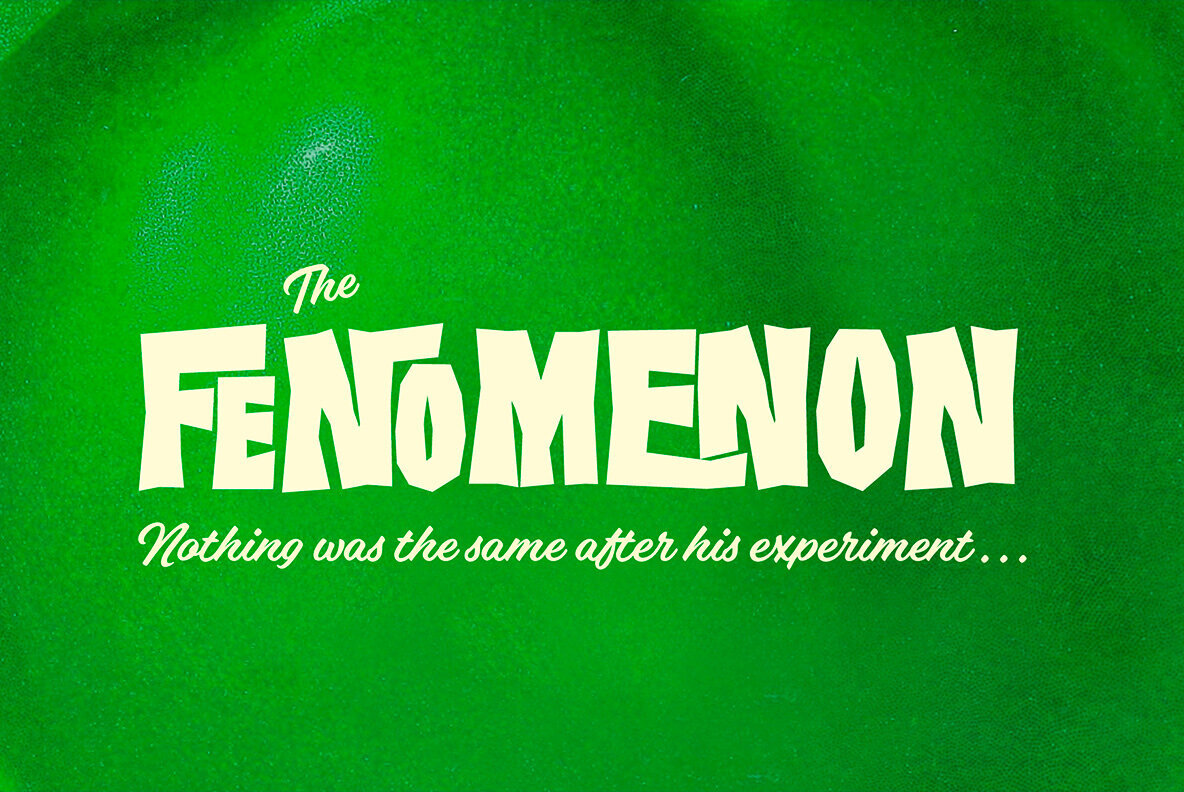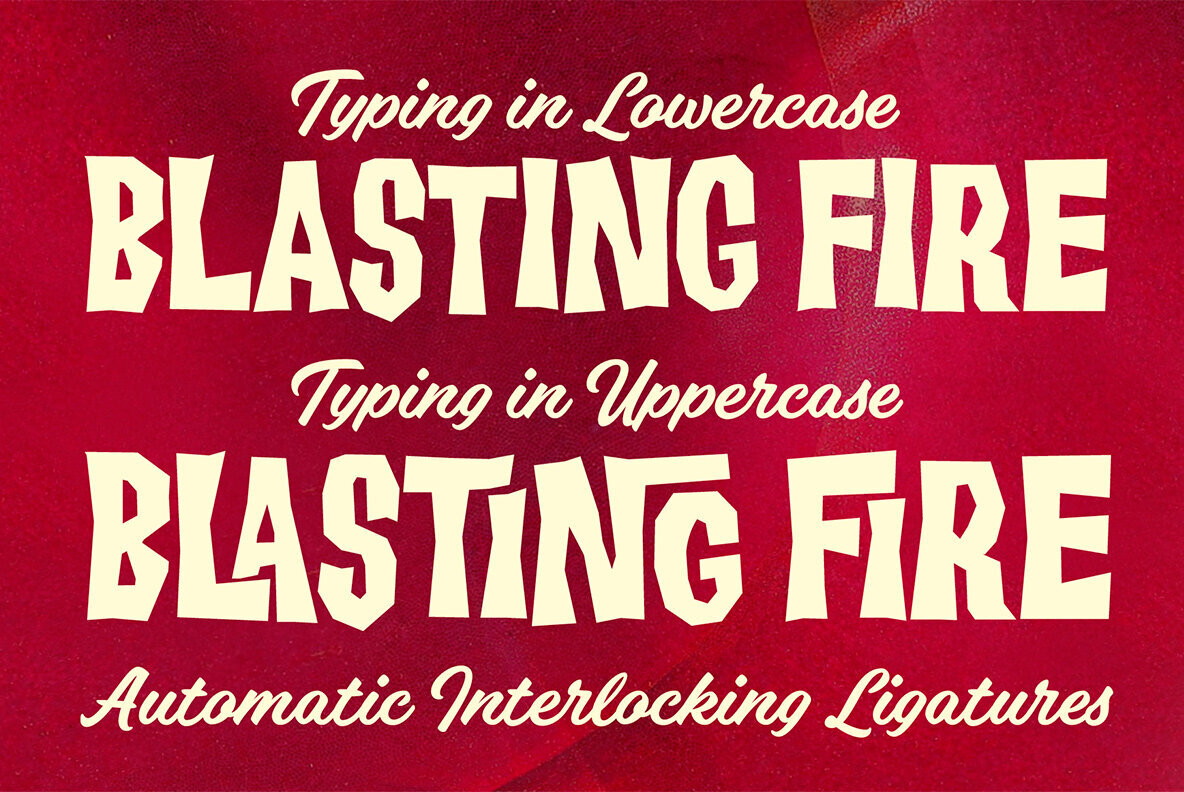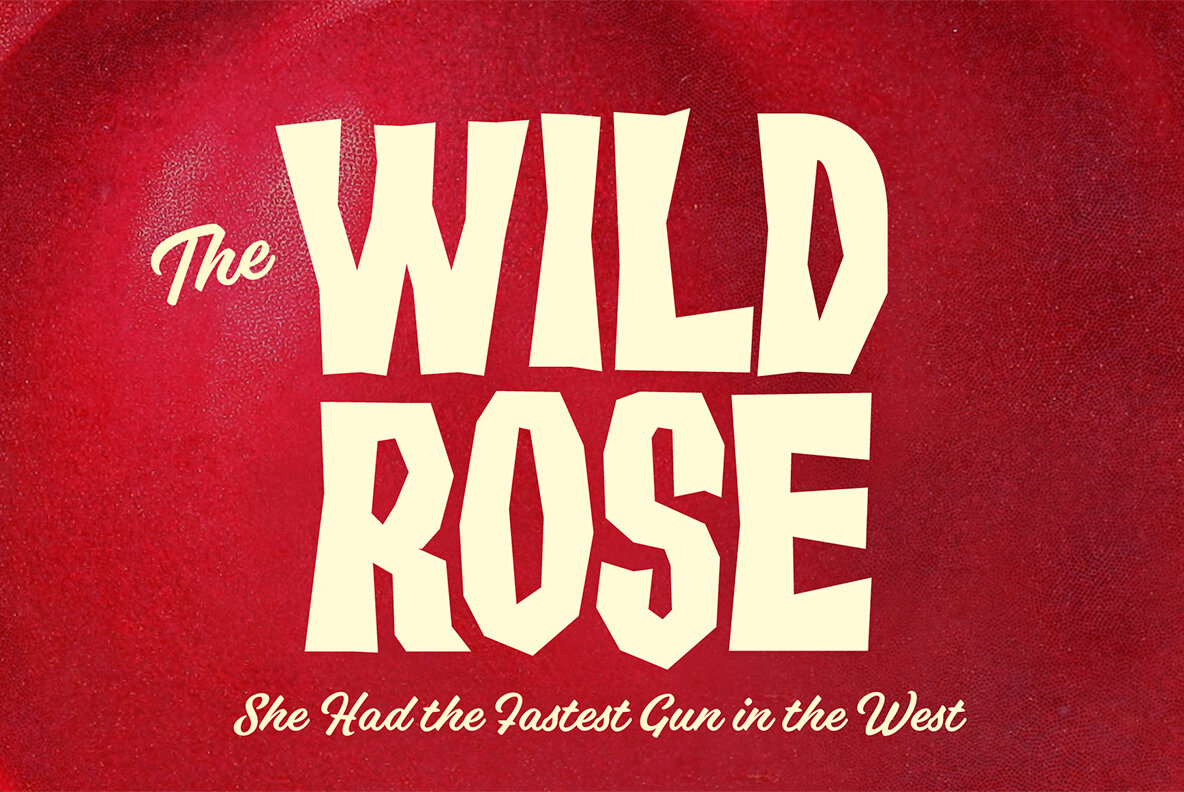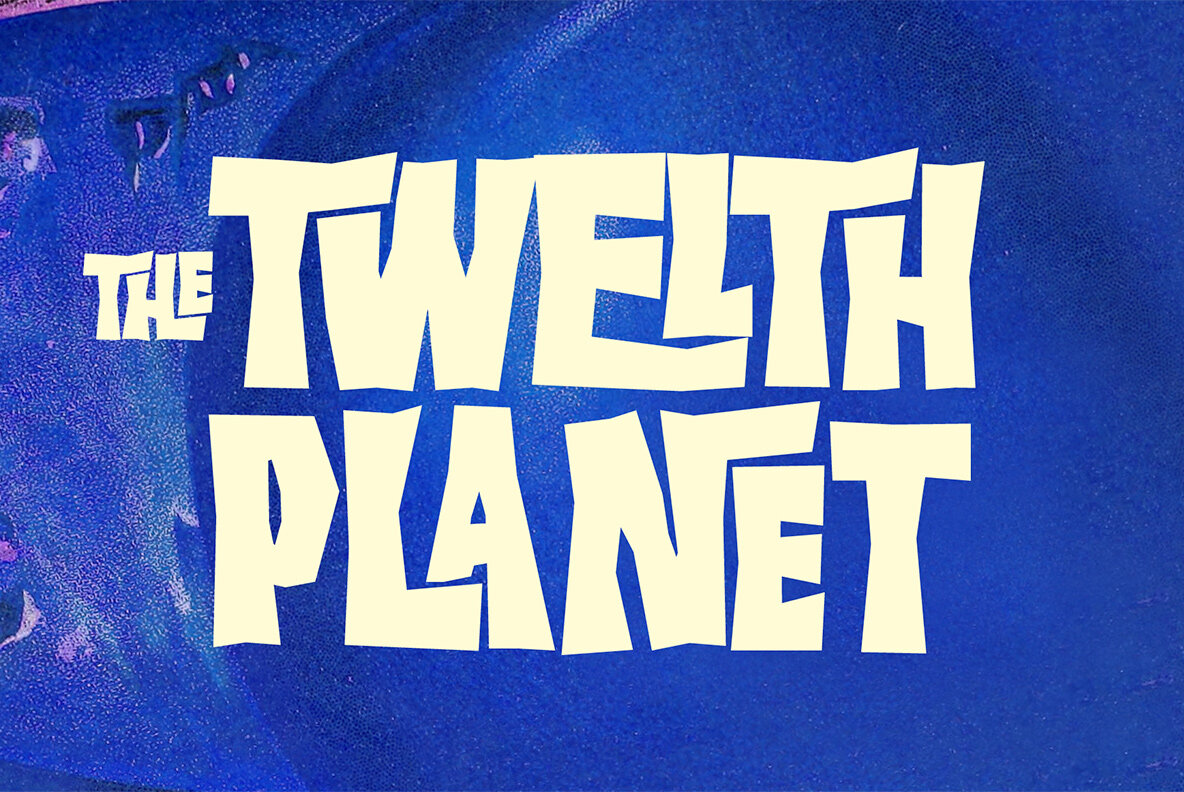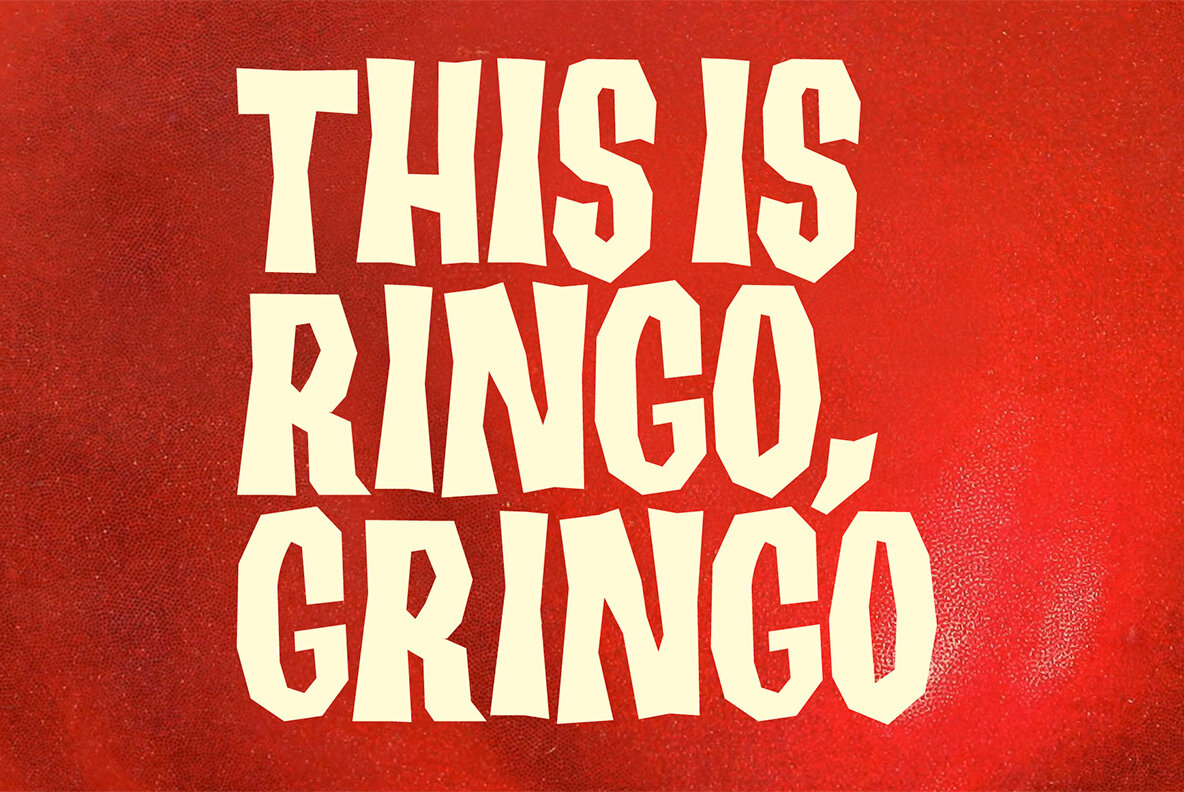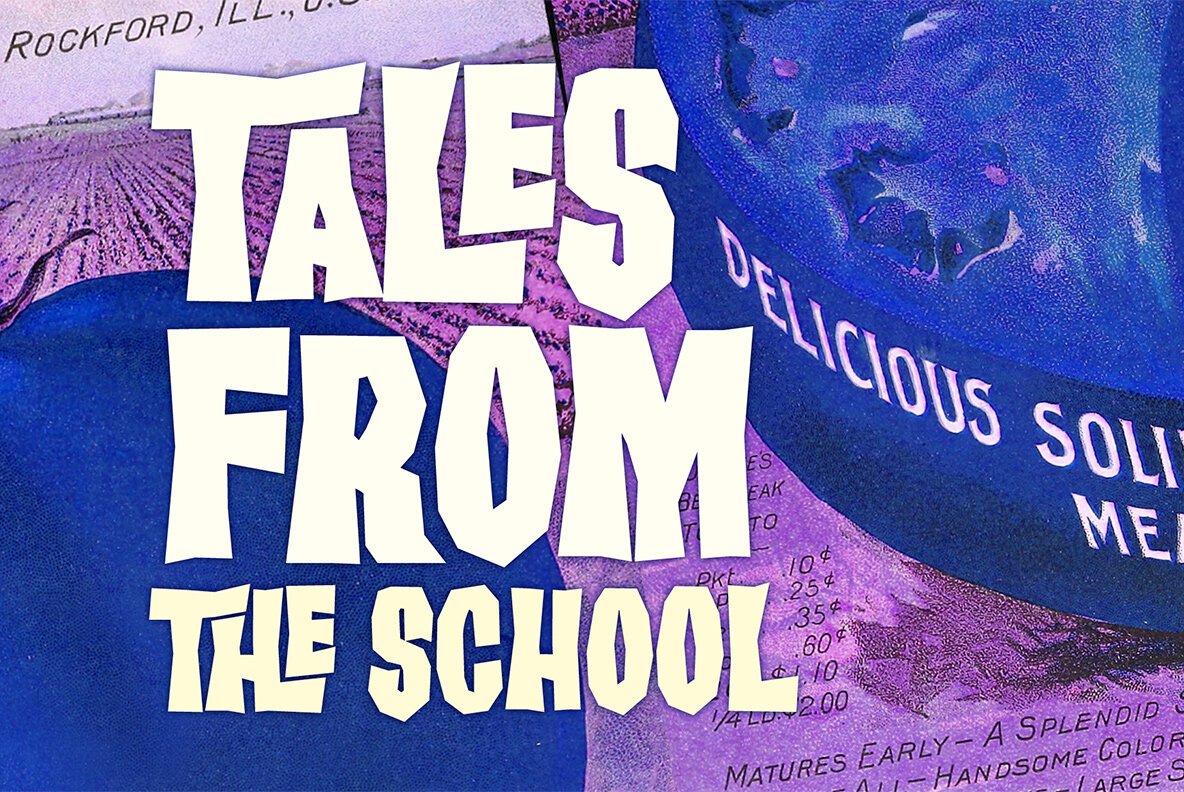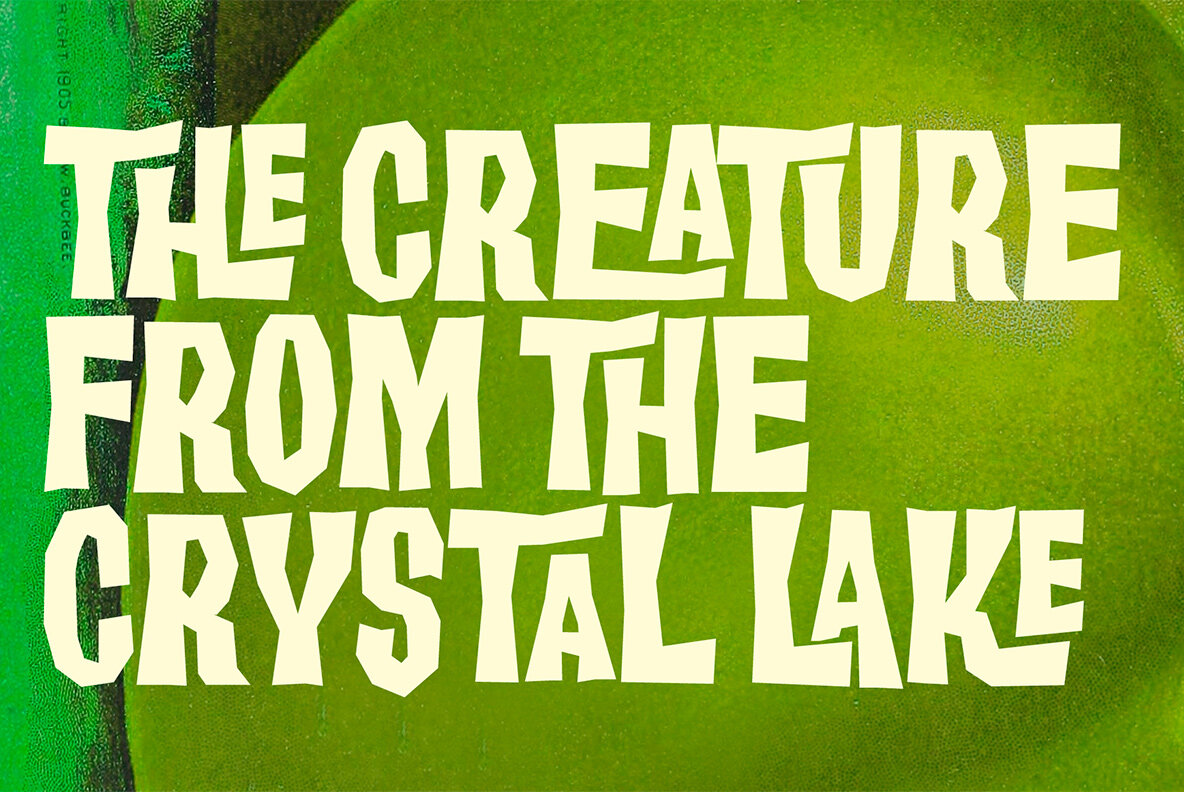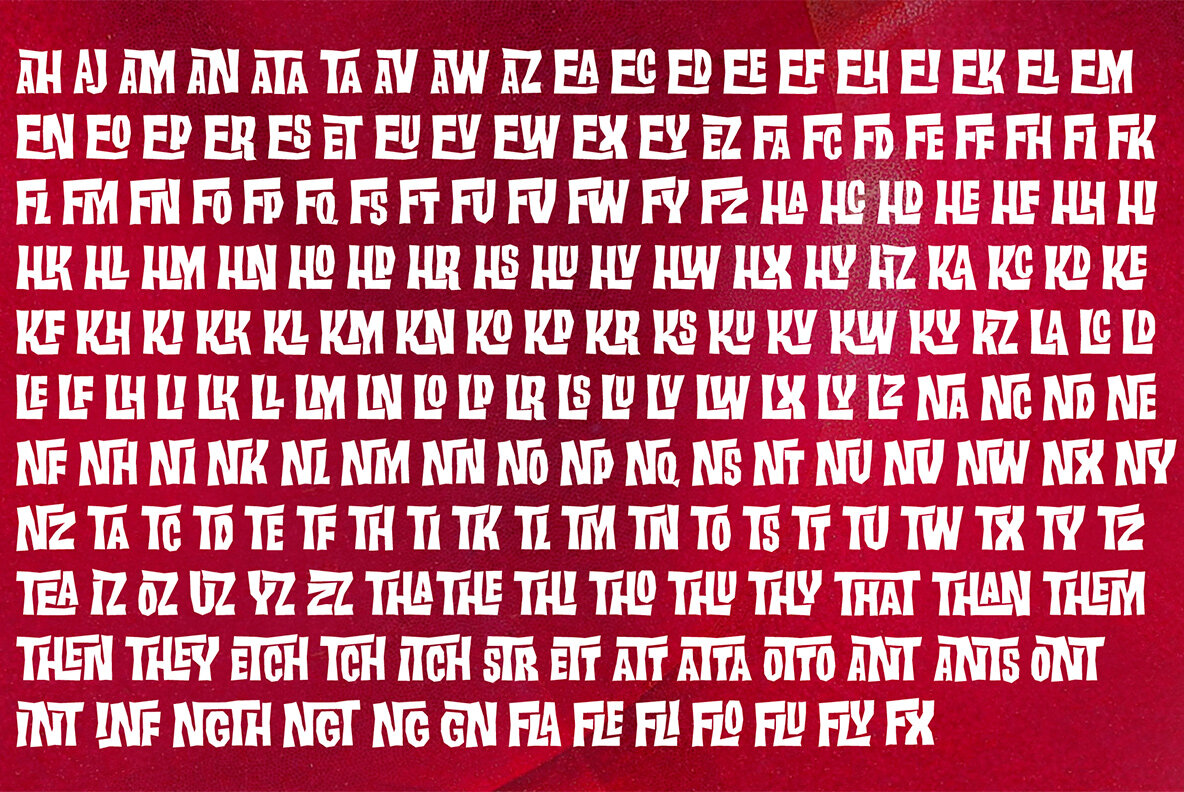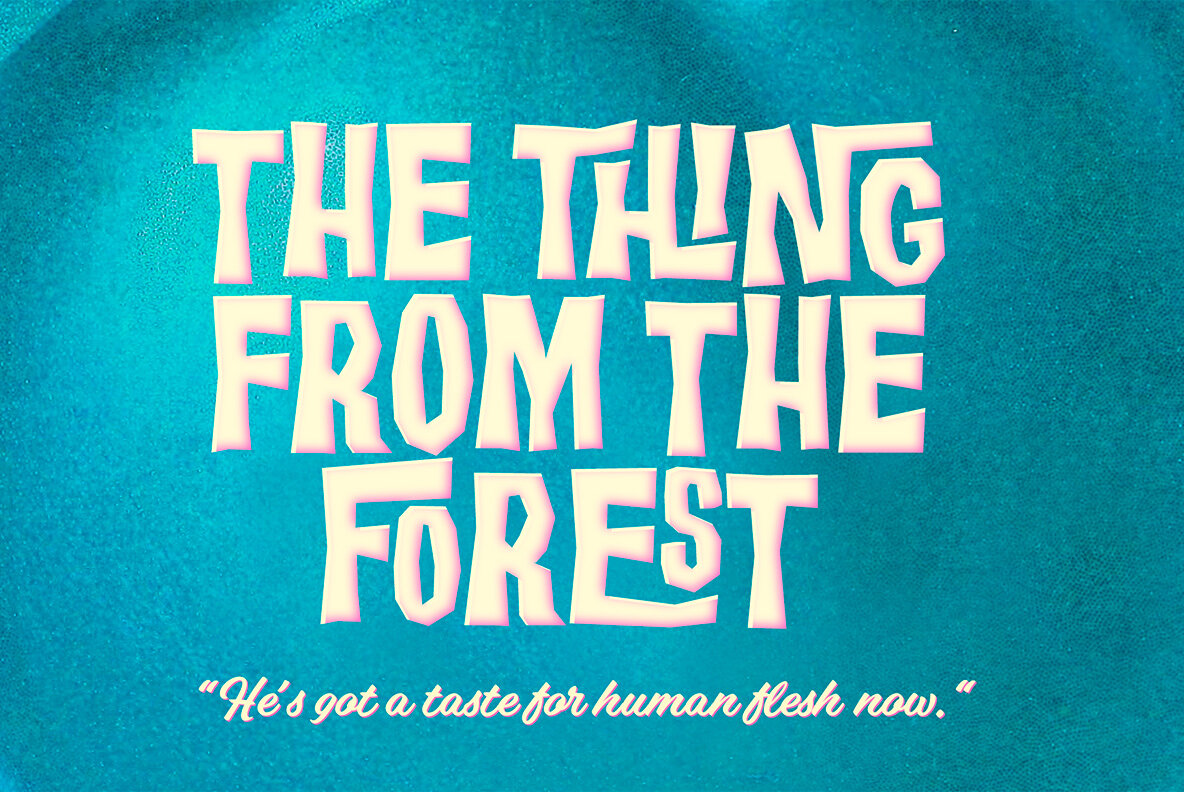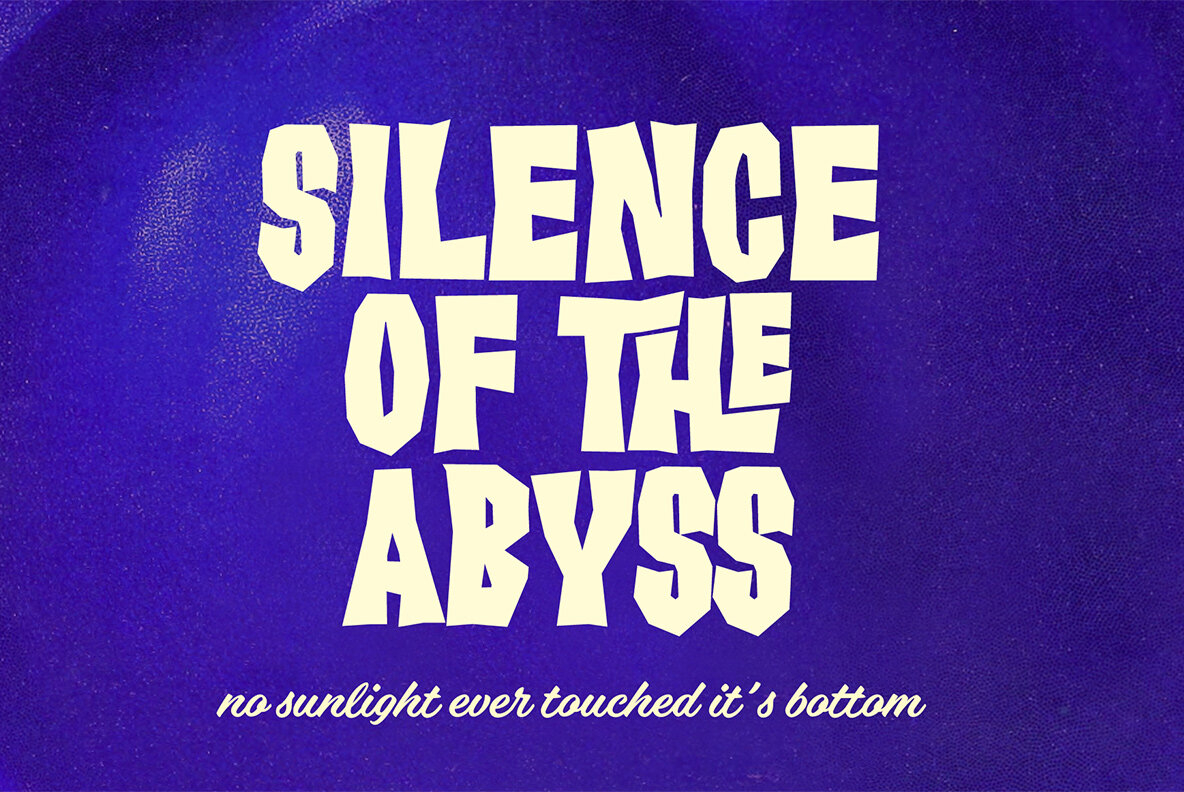
FT Giorgio Font
FT Giorgio Light
FT Giorgio Regular
FT Giorgio Bold
Giorgio is a no-brainer choice for any Western, Vintage Sci-fi or cheap Horror movie title, real or faux. Giorgio is based on a hand lettering in a movie poster La Dolce Vita by Giorgio Olivetti. Giorgio has class-based kerning and around 200 automatic interlock ligature pairs which gives your design a custom look. To use the ligatures you only need to write in CAPS.